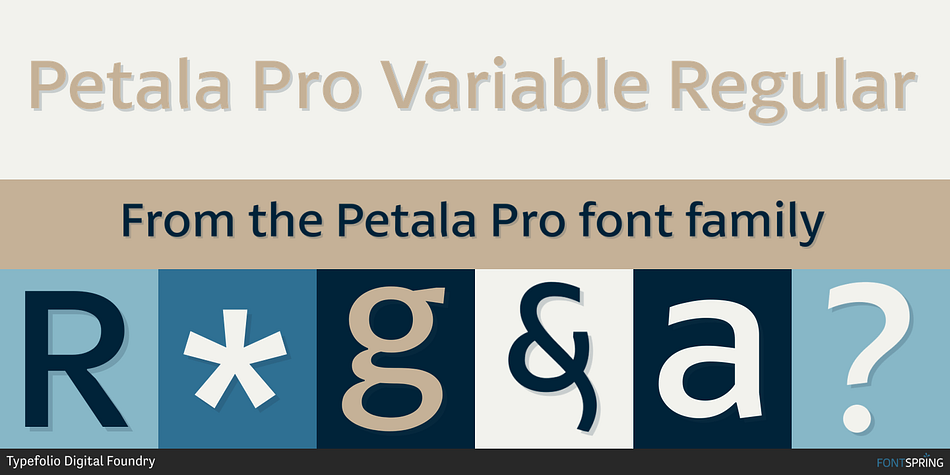
Petala Pro Variable Regular
Petala Pro is a sans serif font family. This typeface has twenty styles and was published by Typefolio Digital Foundry.
Pétala Pro gave his first steps almost ten years ago.
Pétala Pro gave his first steps almost ten years ago. During this time, the quest for perfection had forced several interruptions. It was necessary recalculate the route, tread other ways, discover new maps, and make easy curves. After all, a new milestone on typeface design was reached.
Pétala Pro combines readability with a gentle but strong personality. The smooth and balanced forms shares space with expressive ink traps. The 18 styles of the family – from Thin to Black – allow the flexibility needed to complex design briefs. When designing the different weights, rather than automated solutions, subtle adjustments were made to value the optical qualities of each style. Such care, makes all the difference under extreme conditions.
The wide variety of alternates, makes Pétala Pro even more versatile. All the styles comes with a lot of advanced OpenType features such as stylistics sets, localized forms, contextual alternates, ligatures, small caps, numbers, fractions and more.
Pétala Pro brings your message with efficiency and personality for a multi-language environment and in any medium or support, such as video, mobile and computers screens. Pétala Pro is the ideal choice for editorial, advertising, branding and corporate identity.